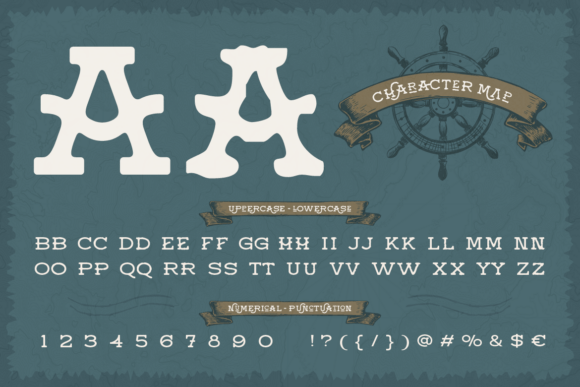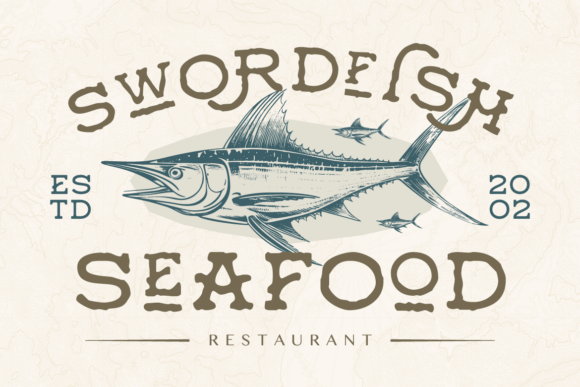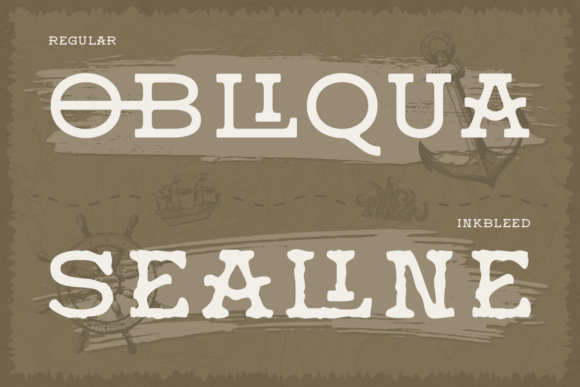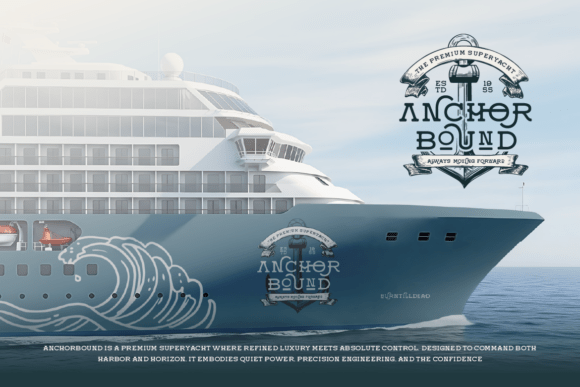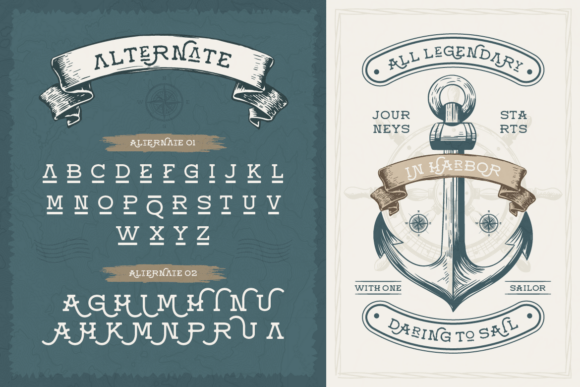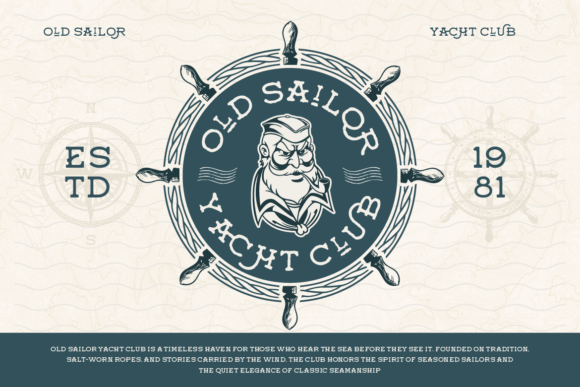
Introduction to Phoenicia Font
Phoenicia is a nautical vintage typeface inspired by classic maritime lettering and old sailor typography.
It brings a timeless sea-faring feel with bold shapes, strong serifs, and subtle vintage character This font comes with two styles: Regular and Inkbleed, allowing you to switch between a clean classic look or a more textured, aged print effect.
Key Features of Phoenicia Font
Why Choose Phoenicia Font?